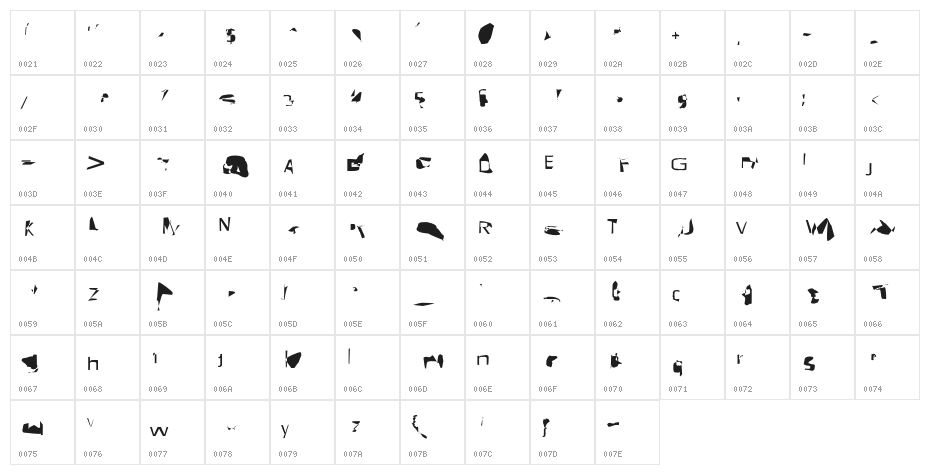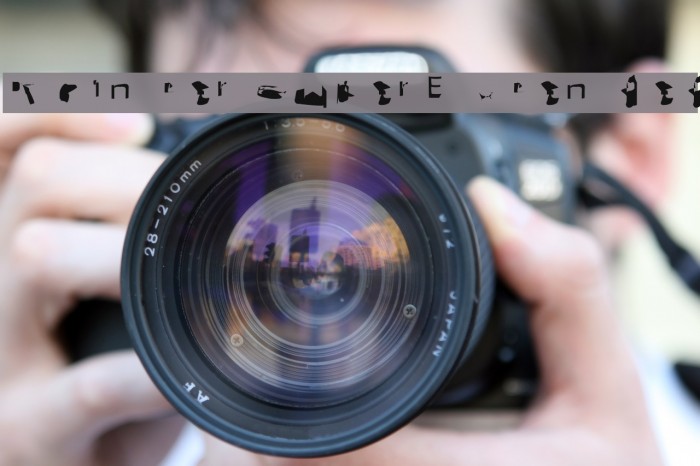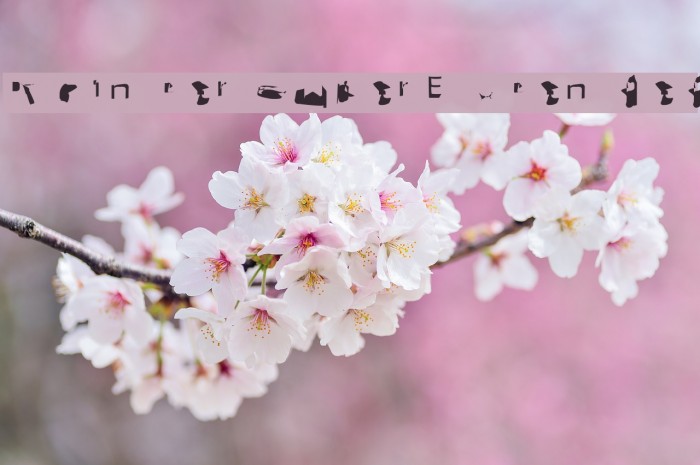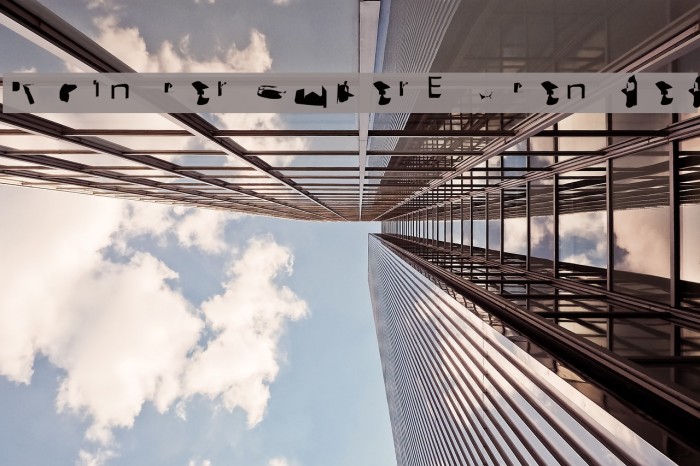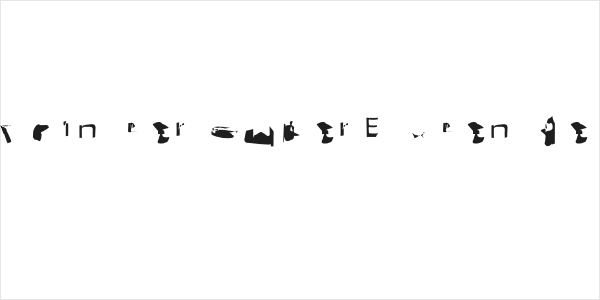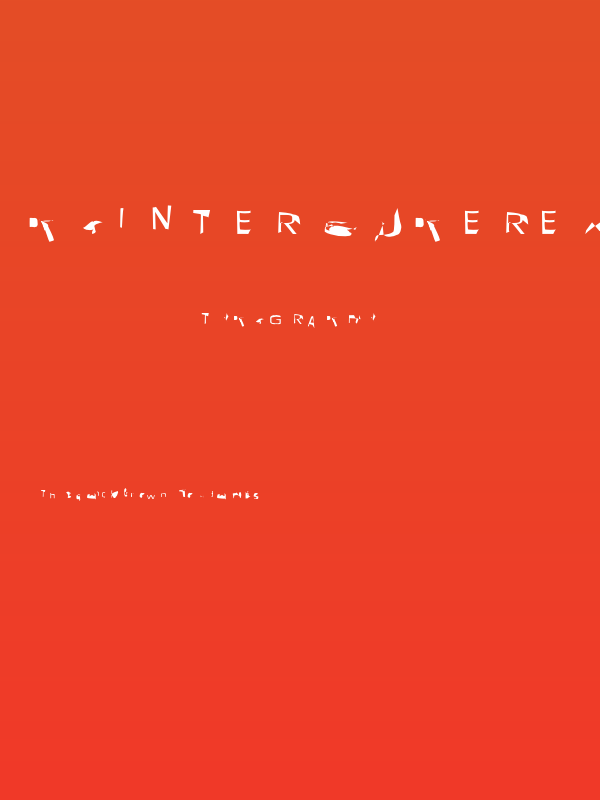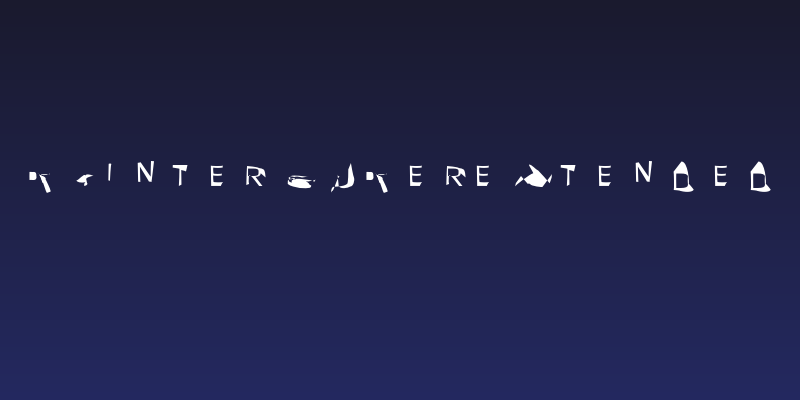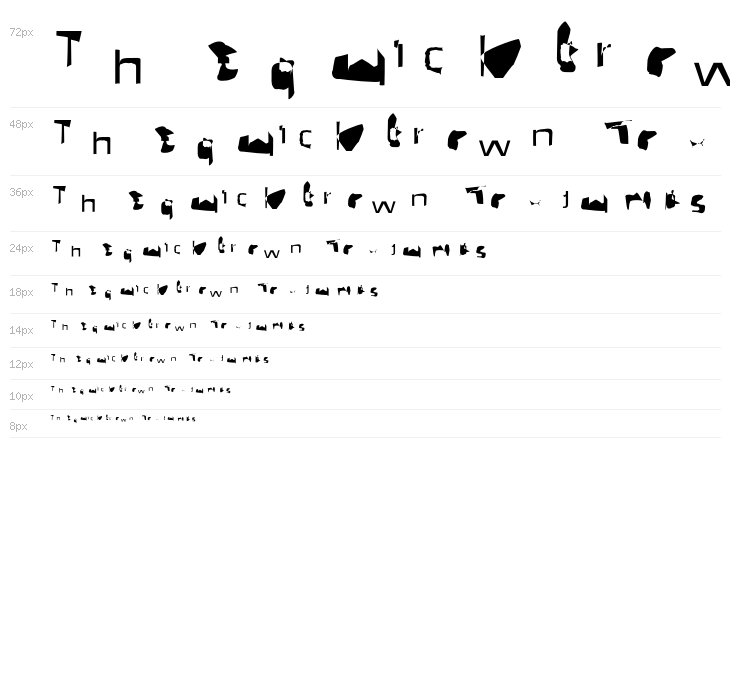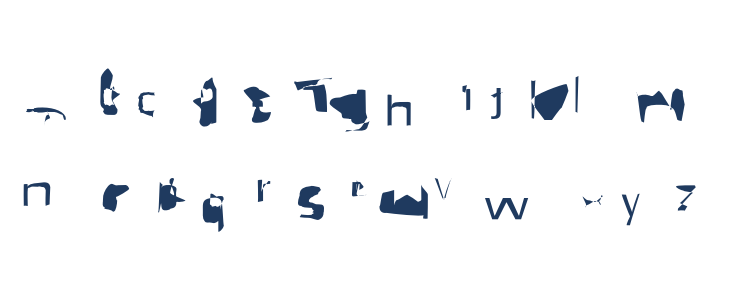
Pointer SuperExtended Font
Pointer SuperExtended Description
This font exhibits a highly abstract and fragmented design, where each character appears to be deconstructed into sharp, angular pieces. The overall appearance is chaotic yet intriguing, with a sense of movement and energy. The characters are barely recognizable, making it a unique choice for artistic and experimental projects. The font's style challenges traditional readability, focusing instead on visual impact and artistic expression. It is not suitable for body text but can be used effectively in contexts where the visual form is prioritized over legibility.
| Overall Style | Abstract, Experimental |
| Use Case | Artistic displays, Experimental designs |
| Proposed Projects | Ideal for experimental art projects, abstract posters, avant-garde designs, and unique branding elements. |